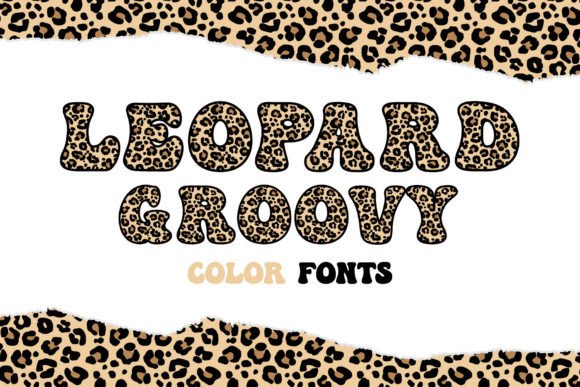
\n\nAre you tired of using the same old fonts for your designs? Look no further than Leopard Groovy Font! Created by Fox7, this colorful font is the perfect addition to any creative project.\n\nLeopard Groovy Font is not only cool and fun, but it's also incredibly versatile. It's perfect for designing t-shirts, tote bags, hats, stickers, wedding designs, logos, cards, quotes, and so much more. With this font, any creative idea will stand out and catch the eye.\n\nBut what makes Leopard Groovy Font truly unique is its compatibility with PhotoShop, Illustrator, Silhouette, and Inkscape. This color font (Opentype-SVG) will take your designs to the next level, and make them truly pop. \n\nIt's important to note that the OTF and/or TTF files of this product are not compatible with Cricut. However, don't let that stop you from using this font to elevate your designs to the next level. If you're unsure of how to use this type of font, check out our Ultimate Font Guide for more information.\n\nWhether you're a professional designer or just starting out, Leopard Groovy Font is the perfect addition to your font collection. Its eye-catching colors and unique design make it the best font for a Christmas card or any holiday design. \n\nDon't settle for boring fonts any longer. Download Leopard Groovy Font today and take your designs to the next level!\n\n